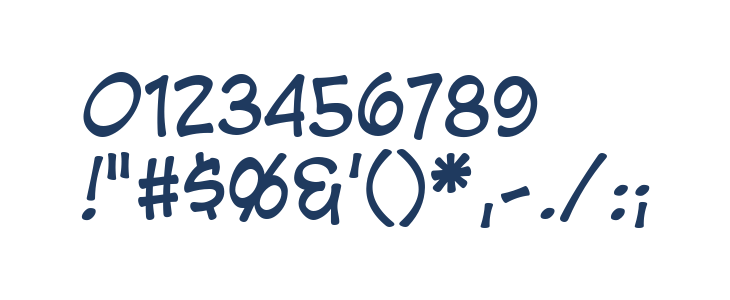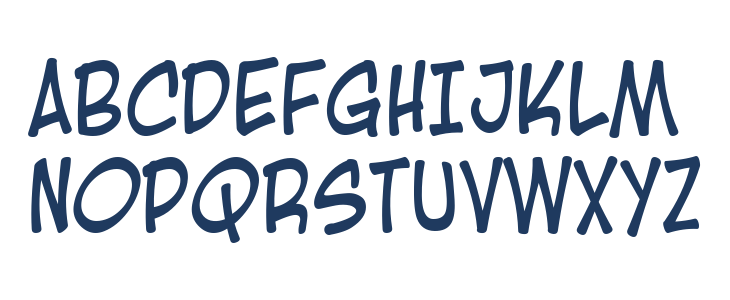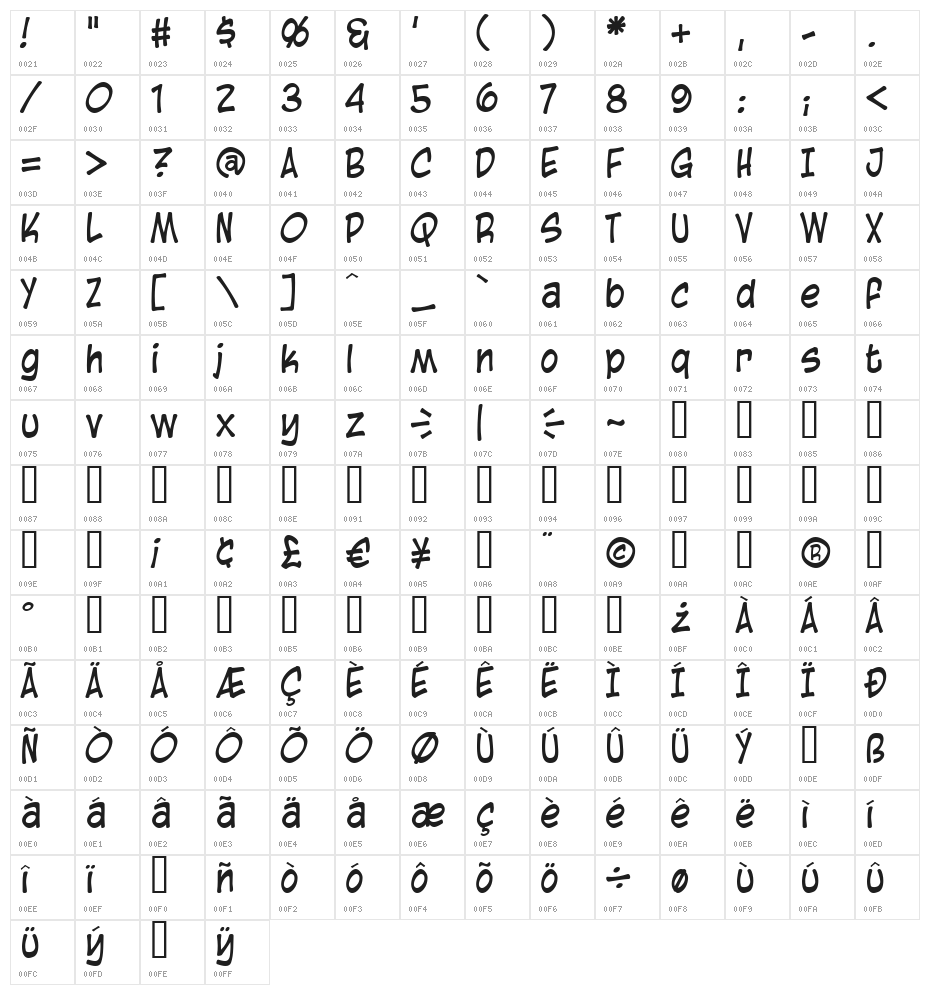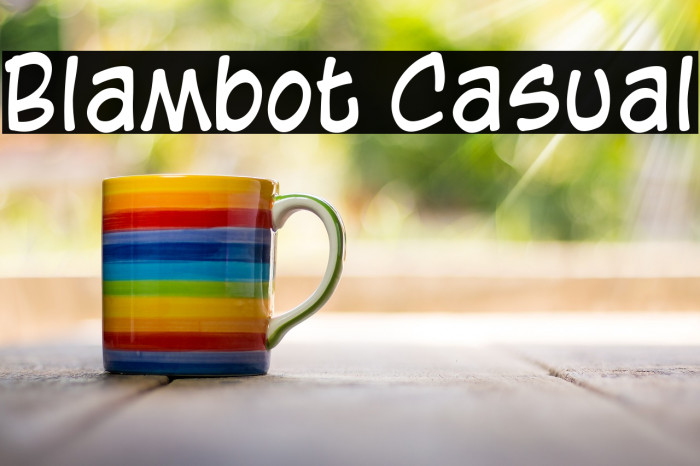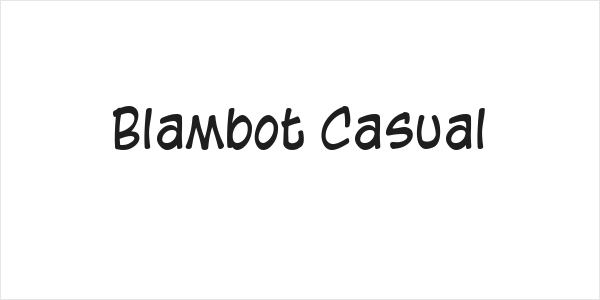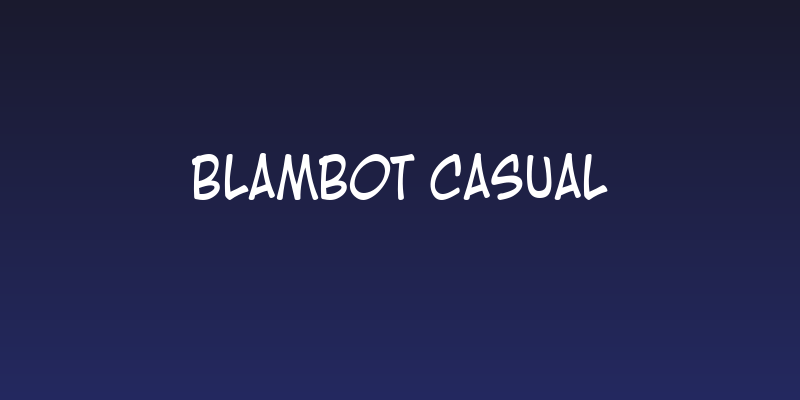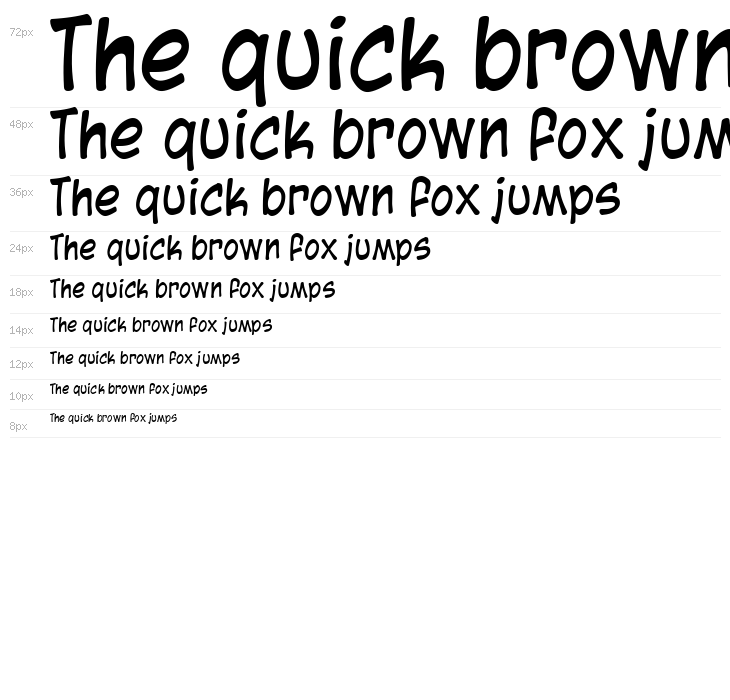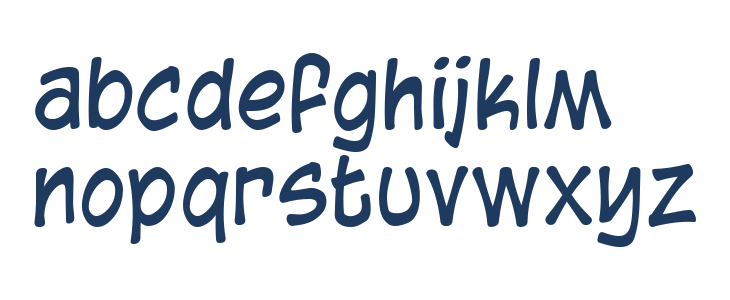
Blambot Casual Font
Blambot Casual Description
This font exudes a playful and casual vibe, characterized by its handwritten style. The letters are slightly irregular, giving it a friendly and approachable appearance. The strokes are bold and rounded, contributing to its informal aesthetic. The uppercase and lowercase letters maintain a consistent style, with a slight slant that adds to the dynamic feel. The numerals and special characters are designed to match the overall playful theme, making it suitable for projects that require a personal touch. The font's legibility is high, even at smaller sizes, due to its clear and distinct letterforms.
| Proposed Projects | Ideal for comic books, children's books, casual branding, and playful invitations. |